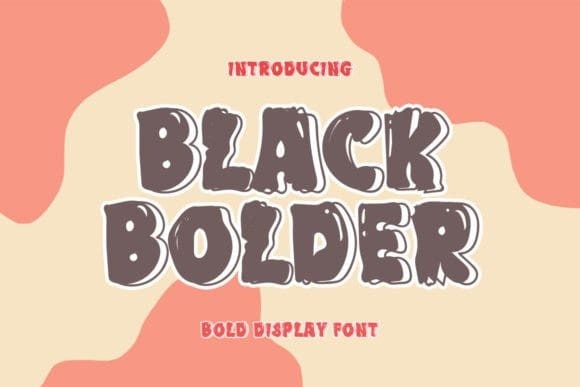
BLack Bolder Typeface
BLack Bolder Typeface is a beautiful and sweet font. It is fresh, clean, and elegant. This font will look amazing in a great number of projects, both formal and informal. It will add an incredibly joyful touch to your designs.